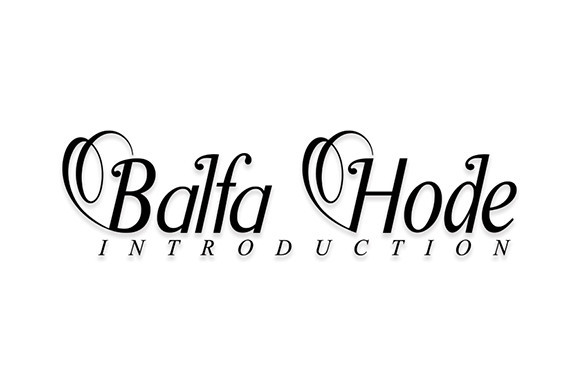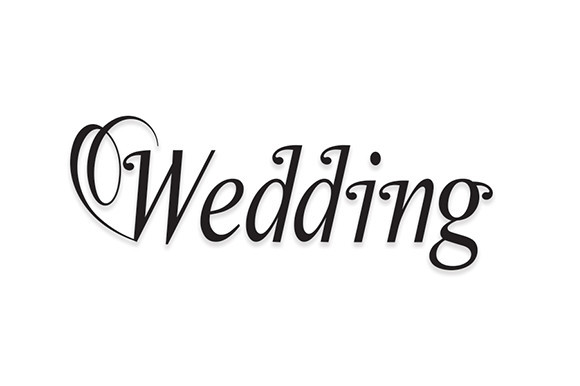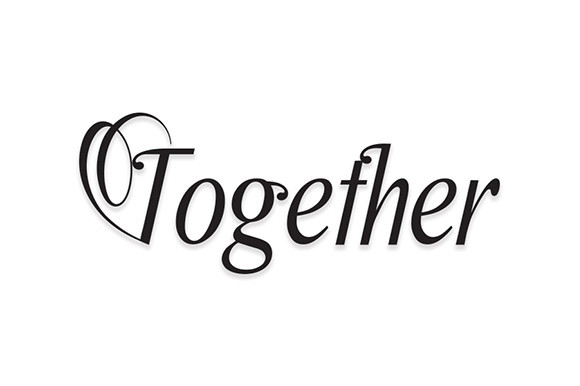
Balfa Hode Font
Balfa Hode is an original and cute handwritten font. It features gorgeous swashes that make it perfect for wedding invitation, stationery, branding and much more! Use Balfa Hode to add a romantic touch to your projects!